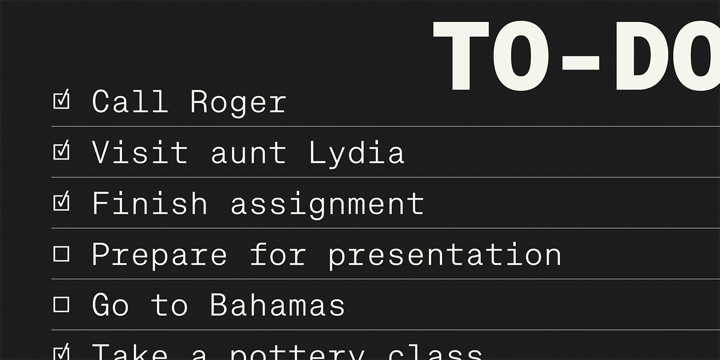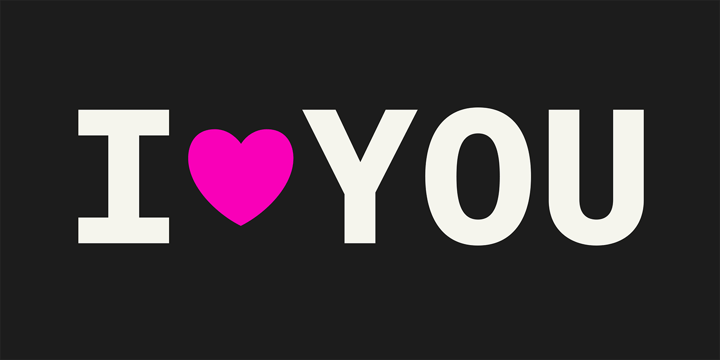
Approach Mono
by Emtype Foundry
The Approach Mono Font Family was designed by Eduardo Manso and published by Emtype Foundry. Approach Mono contains 6 styles and family package options. More about this family
Approach Mono is the fixed width version of Approach. A utilitarian low contrast font, a bit mechanical but plenty of character. This version shares its main features with the original one, but it has a more prominent and visible punctuation. The more obvious use of a mono would be in tables, programming code or “in progress texts”, but not just that. Approach Mono can be used in the modern communication, bringing an aseptic voice to brochures, advertising, identities and any other piece of communication. For more details see the PDF.
Designers: Eduardo Manso
Foundry: Emtype Foundry
Eduardo Manso is an Argentinean type designer who has been living in Barcelona since 2000. Before establishing his own foundry, he published numerous fonts through T-26, ITC Fonts, Bitstream, and Linotype. He has designed custom typefaces for clients worldwide, such as General Motors, ESPN, Puma, The Sunday Times of London, the Munich Airport, or the Gaudí house 'La Pedrera' in Barcelona. Among other awards, he has received the 'Certificate of Excellence in Type Design' from the Type Directors Club of New York three times. He currently teaches typography classes at several schools in Barcelona and actively designs new typefaces. He has been a member of the Alliance Graphique Internationale (AGI) since 2010. For more info visit https://emtype.net